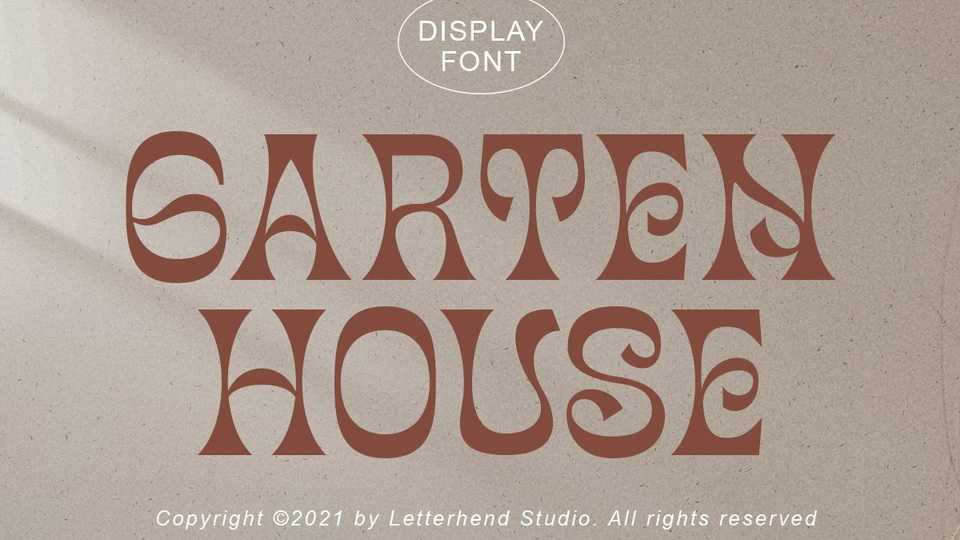
Download Garten House font, a sophisticated reverse contrast display typeface. Garten House will elevate a wide range of crafting ideas, from cards, to branding, labels and much more.